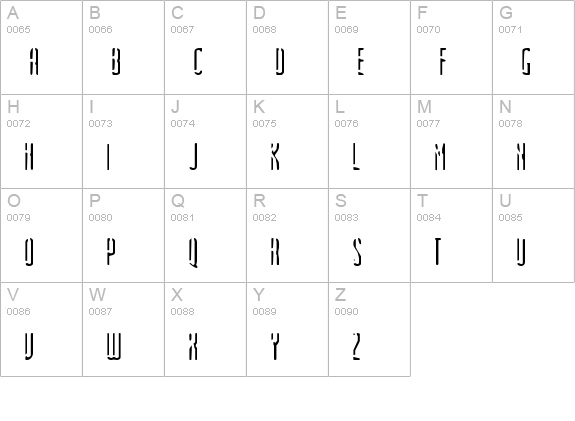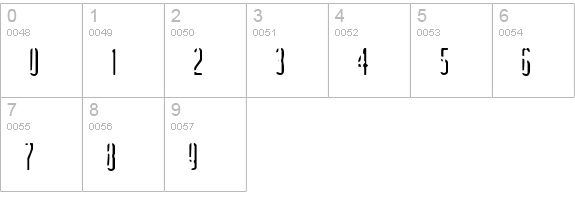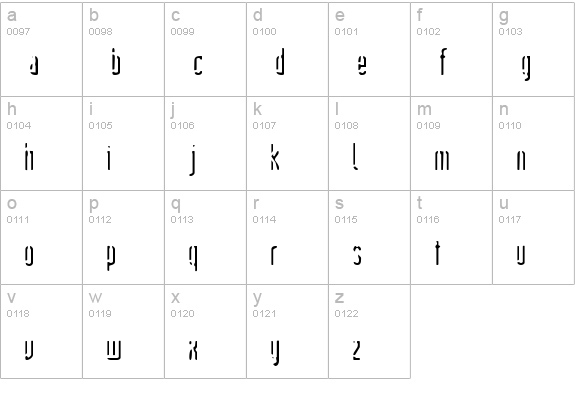
Devil's Handshake Font Details
Introducing Devil's Handshake font, a striking and bold typeface designed to make a powerful statement. With its edgy yet elegant letterforms, Devil's Handshake exudes a sense of mystery and intrigue, perfect for adding a touch of drama to your designs. This font features unique and intricate details that give it a distinct personality, making it stand out from the crowd. Whether you're creating posters, logos, or branding materials, Devil's Handshake will add a touch of sophistication and style to your projects. Best of all, Devil's Handshake font is available for free download at FontsMarket.com. So go ahead and unleash your creativity with this captivating typeface that is sure to leave a lasting impression.